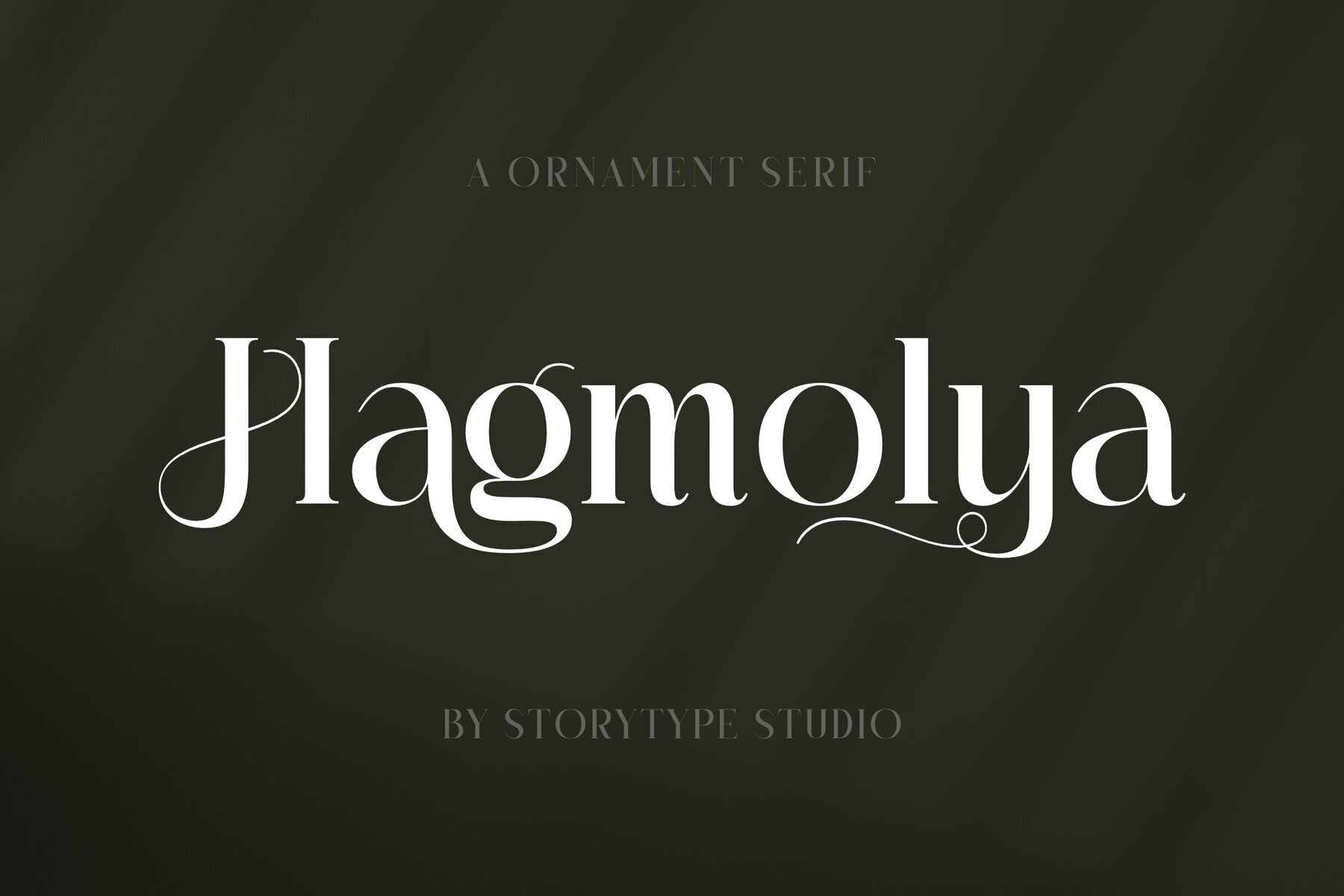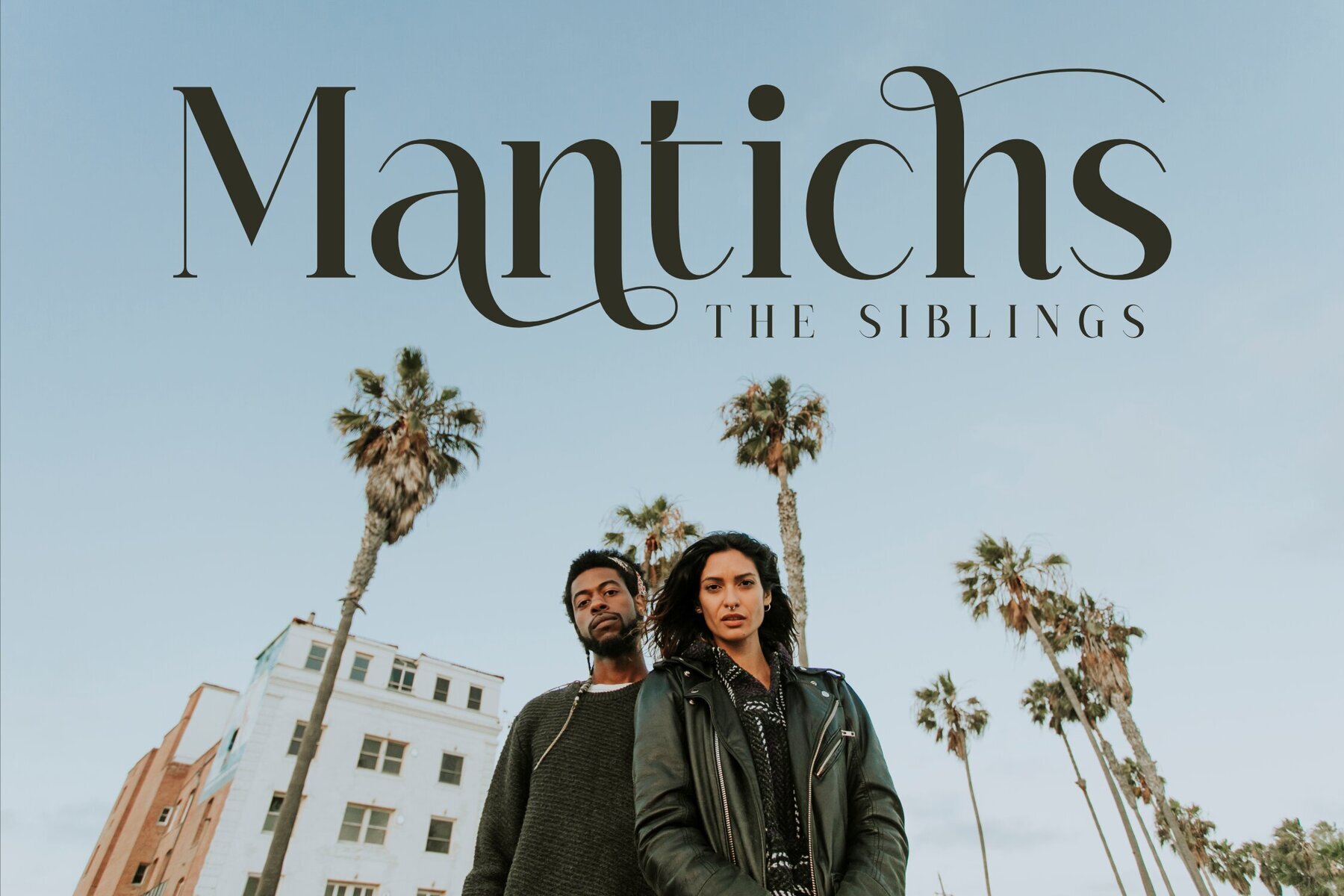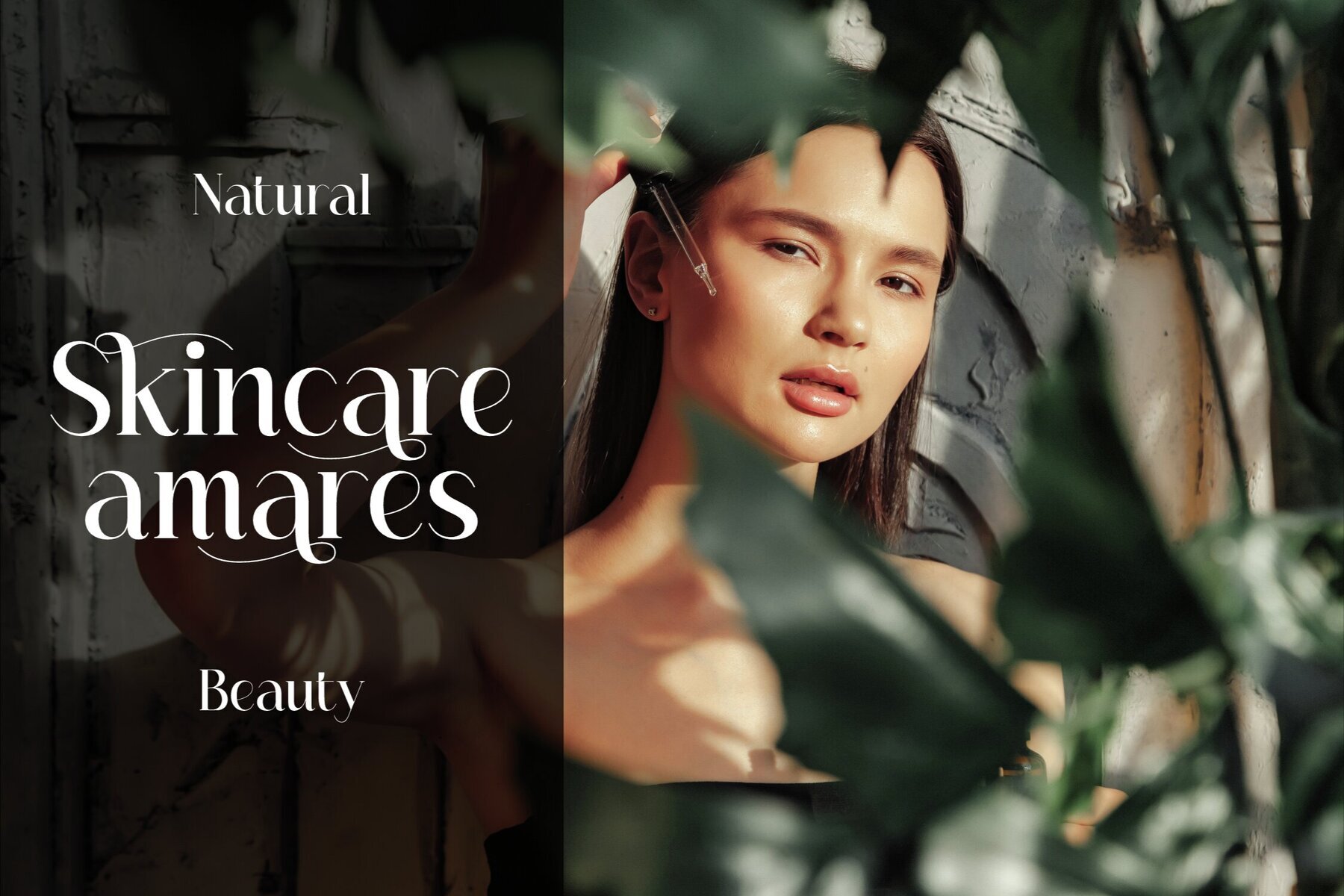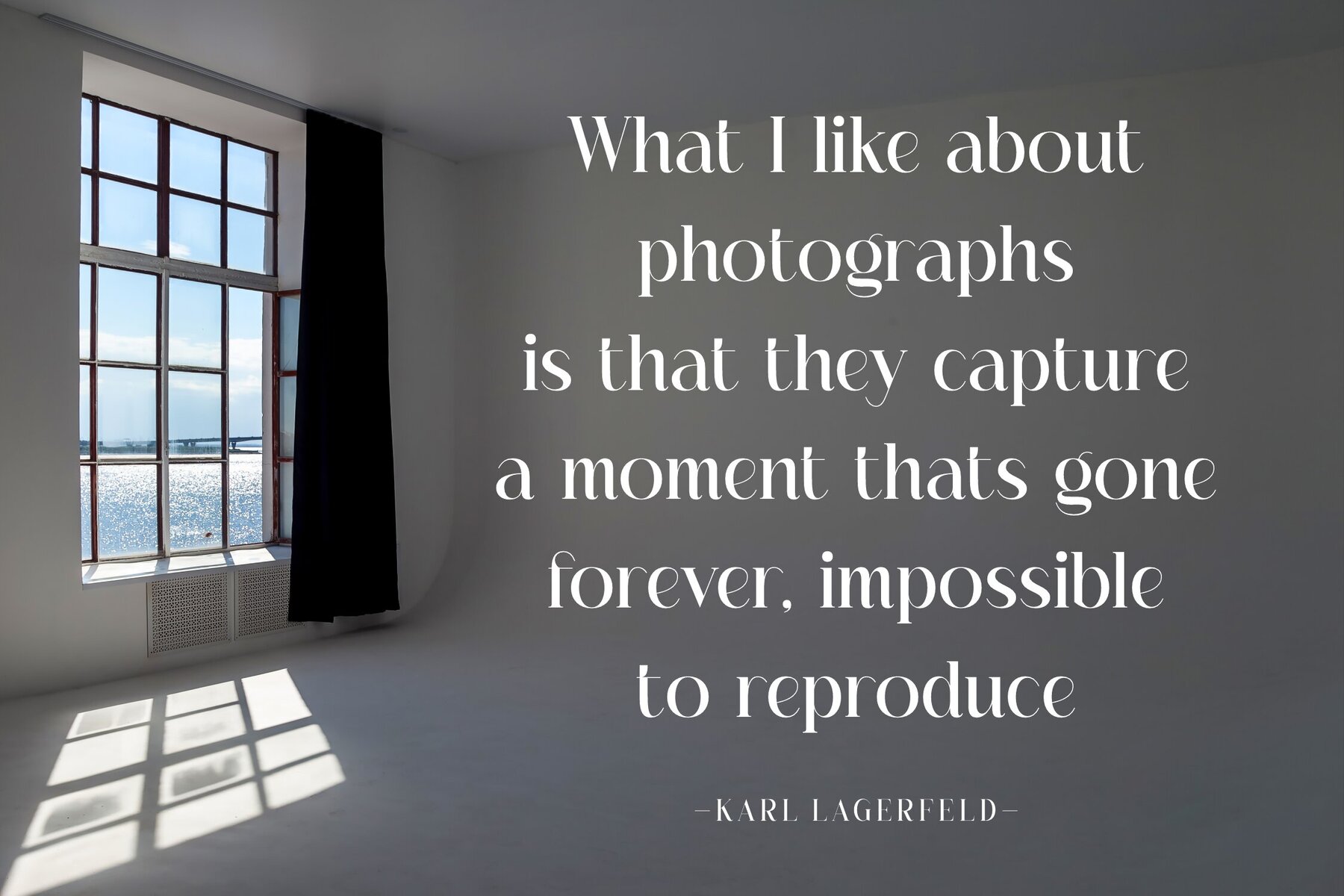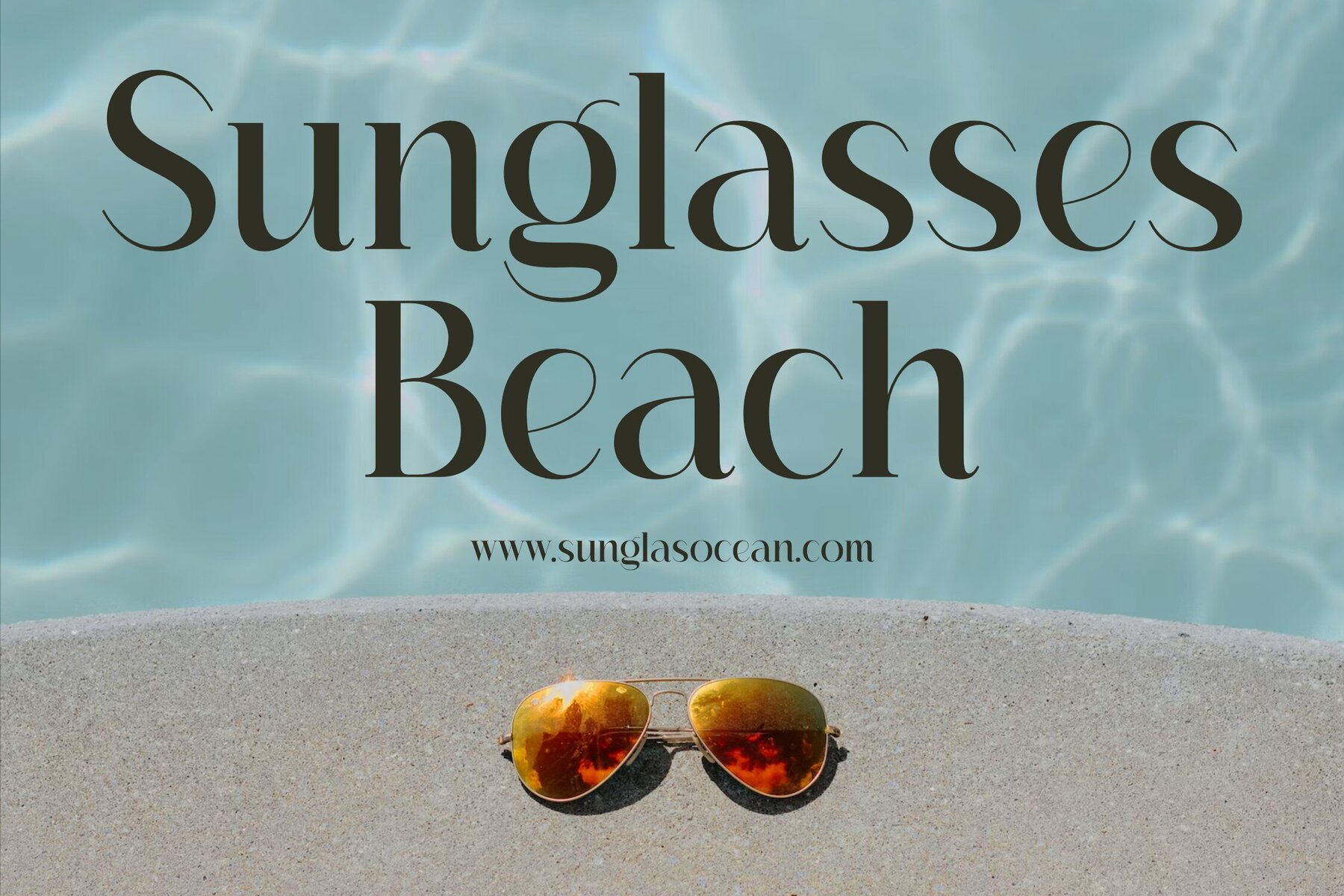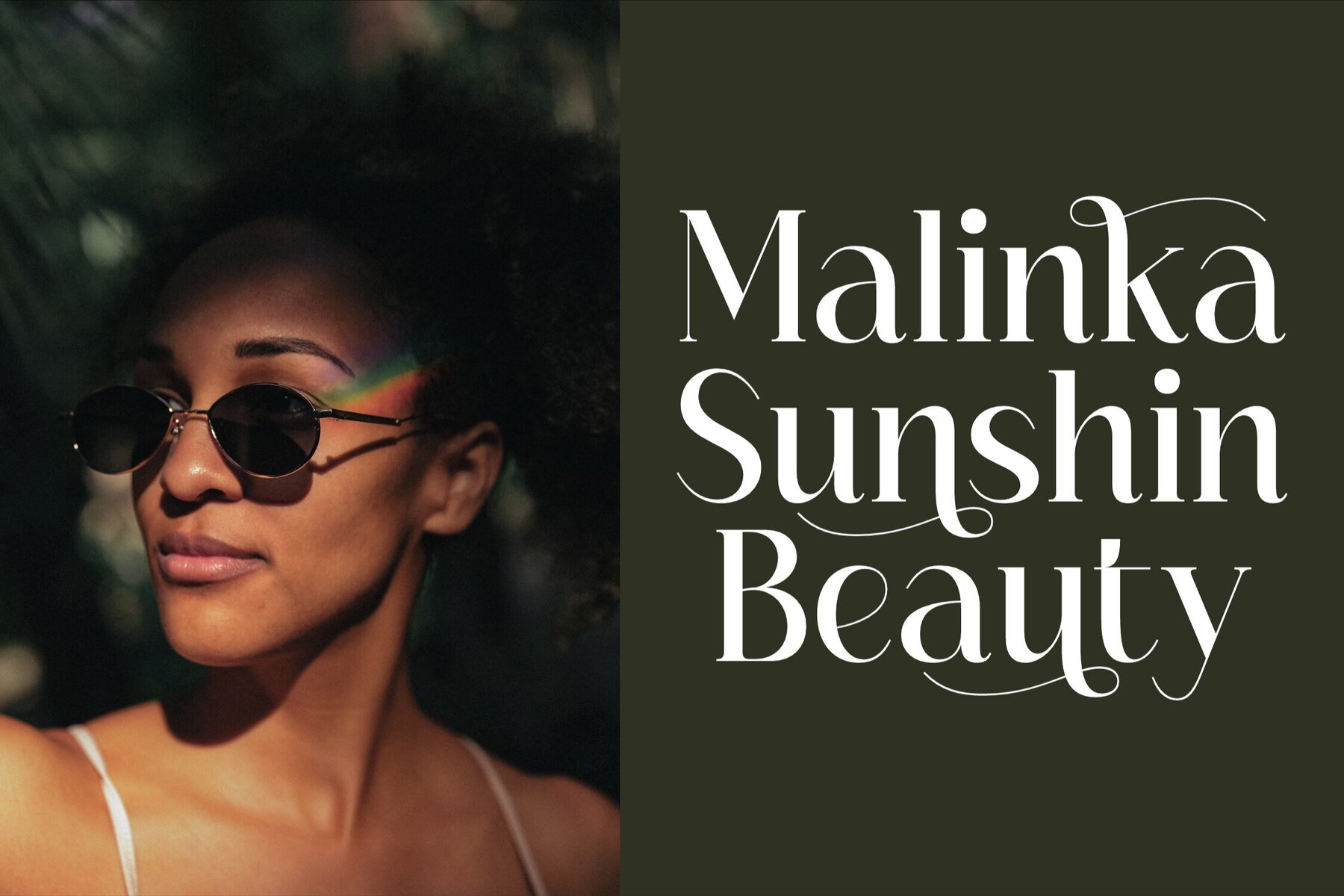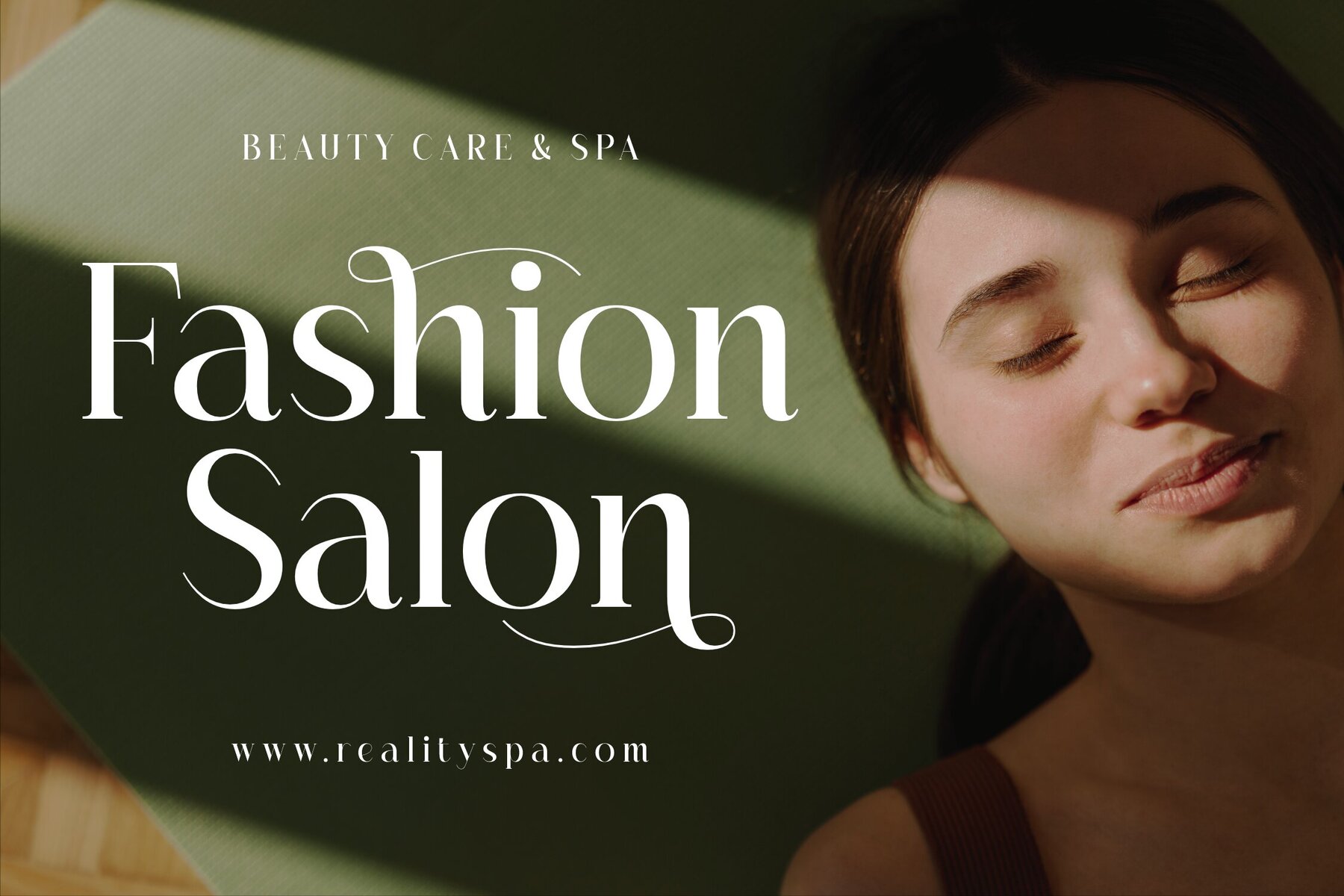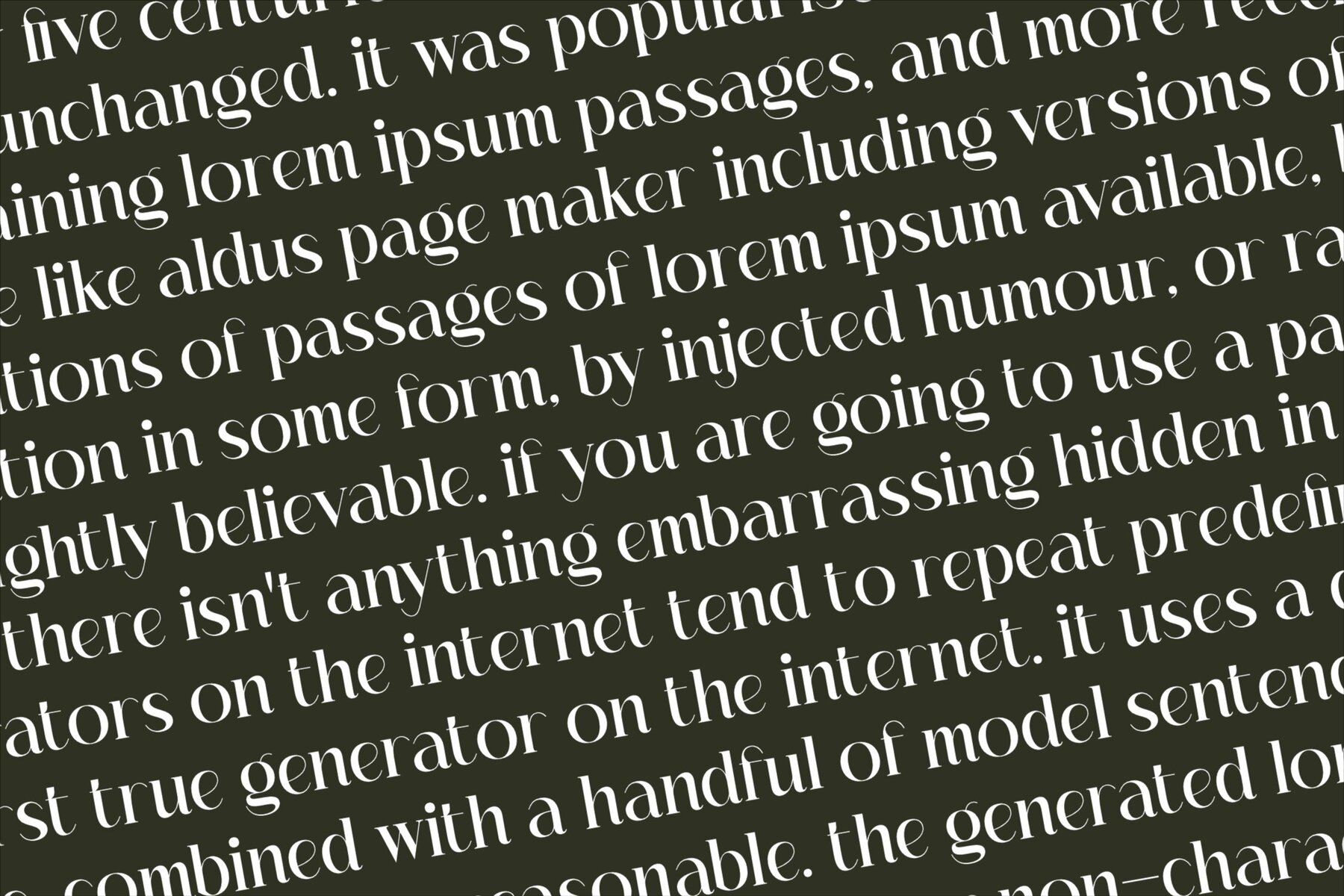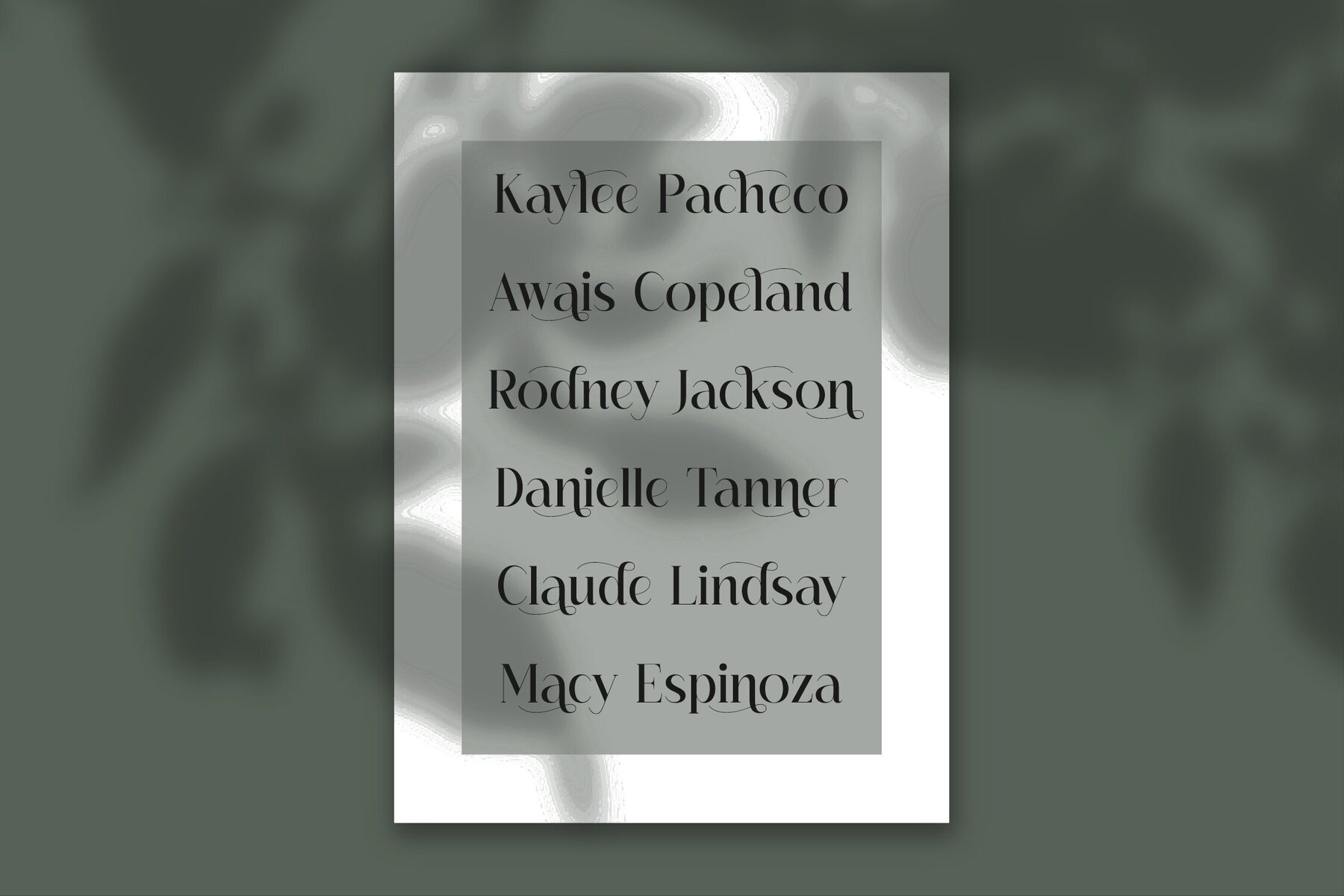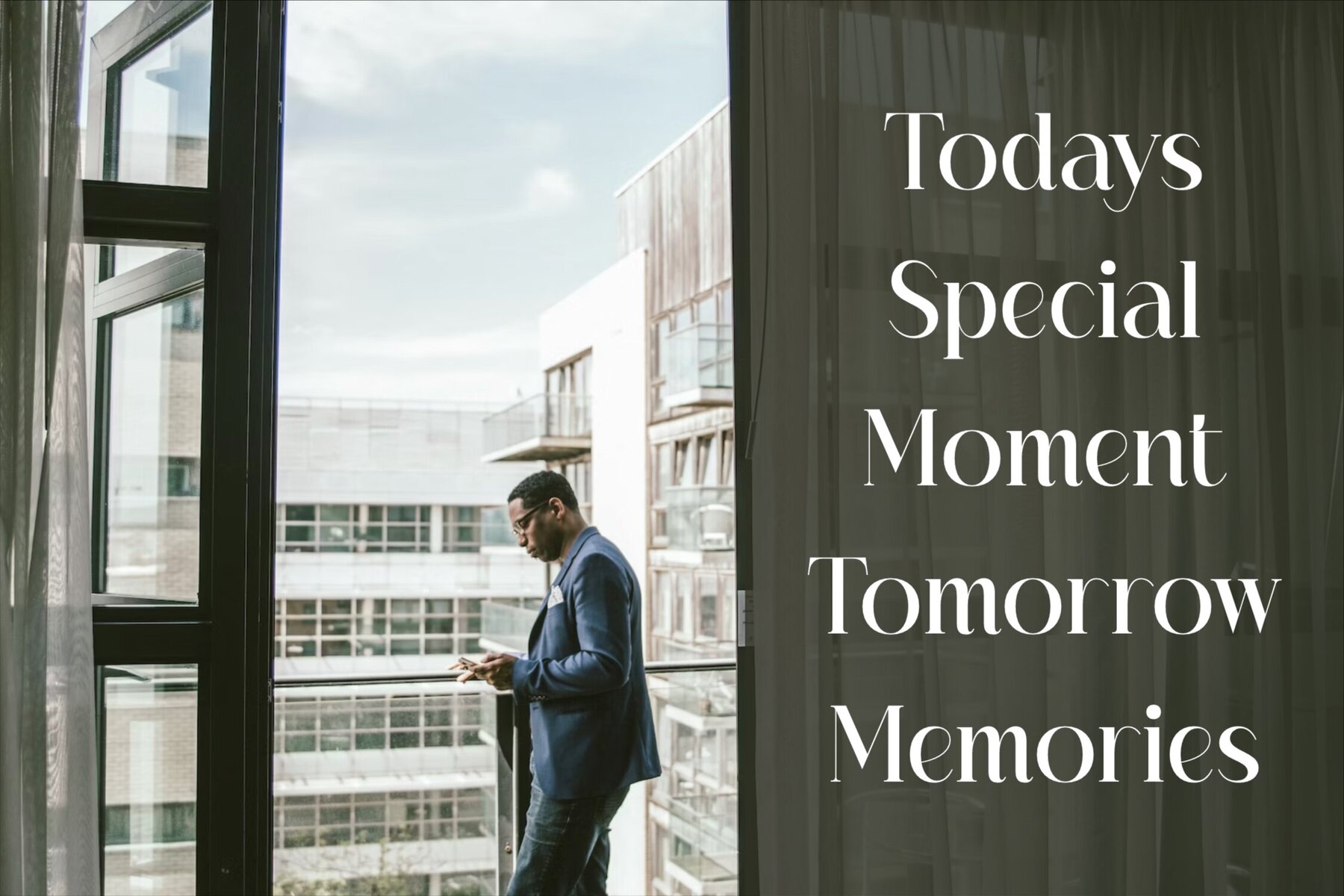
Hagmolya Font
Hagmolya by Storytype Studio blends classic sophistication with modern design, resulting in a serif typeface that exudes unique character and style. Perfectly suited for creating luxurious logos, captivating book or movie titles, and high-end fashion brand identities, this typeface adds a touch of elegance to any project. Additionally, it's ideal for magazines, apparel designs, and striking quotes.Hagmolya Typeface: Timeless Elegance and Modern Flair